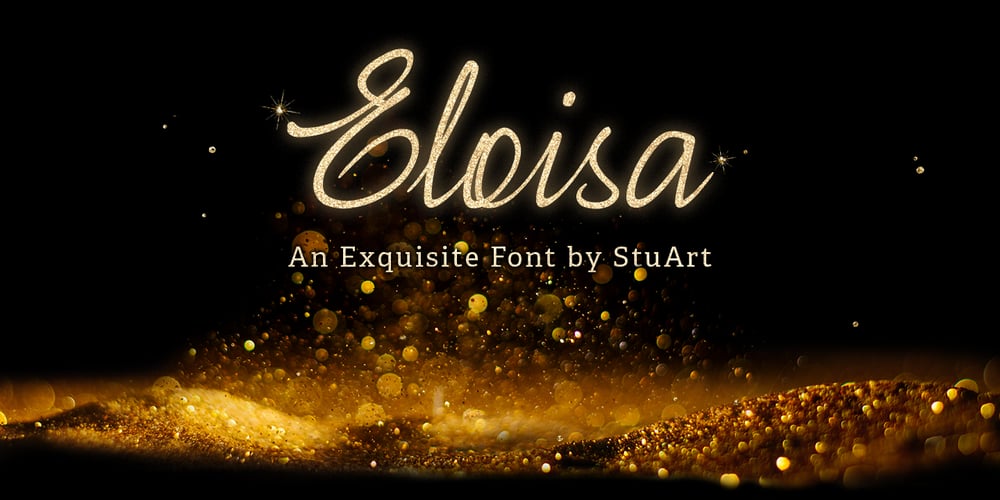
Eloisa Font Family was designed by Andrea Stuart and published by StuArt. Eloisa contains 1 styles and family package options. Eloisa is based on the penmanship of Andrea Stuart’s eponymous aunt. The slow, meticulous strokes with which Eloisa writes is the result of formal (and meticulous) instruction in cursive writing back in her secondary education in an exclusive all-girls school. The interesting mix of smooth curves and sharp strokes combined with the slanted orientation make for an elegant yet dynamic visual appeal. Eloisa is perfect for branding, invitations, greetings, or any classy rendering of text you may imagine. Be classy!